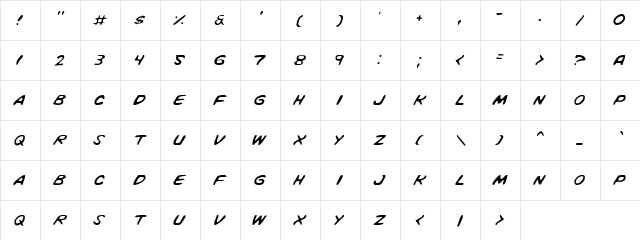
Vigilante Notes Light Light
Design Context for Vigilante Notes Light Typeface
Vigilante Notes Light is a composed and adaptable typeface that performs quietly and consistently across a wide range of design contexts. Its slender proportions lend an understated elegance to any composition.